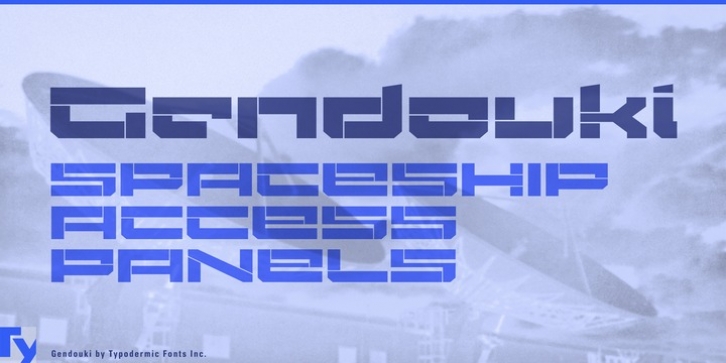
Gendouki was designed by Ray Larabie and published by Typodermic. Gendouki contains 1 style.
Gendouki is a wide, futuristic sans-serif display font with filament stencil lines inspired by spaceship access panels.